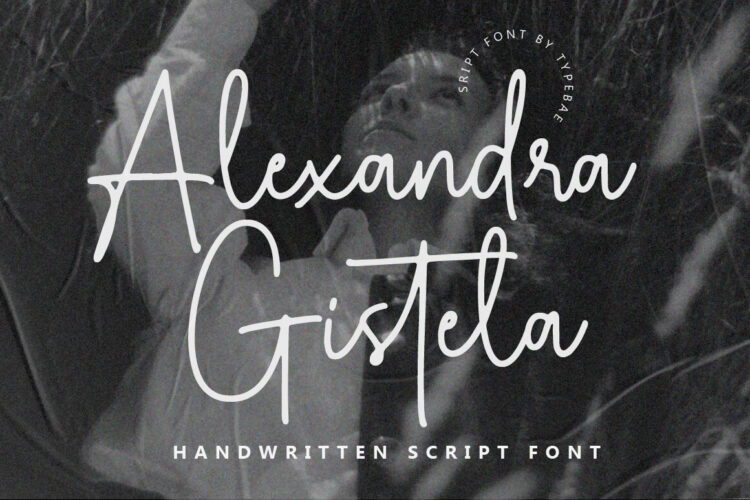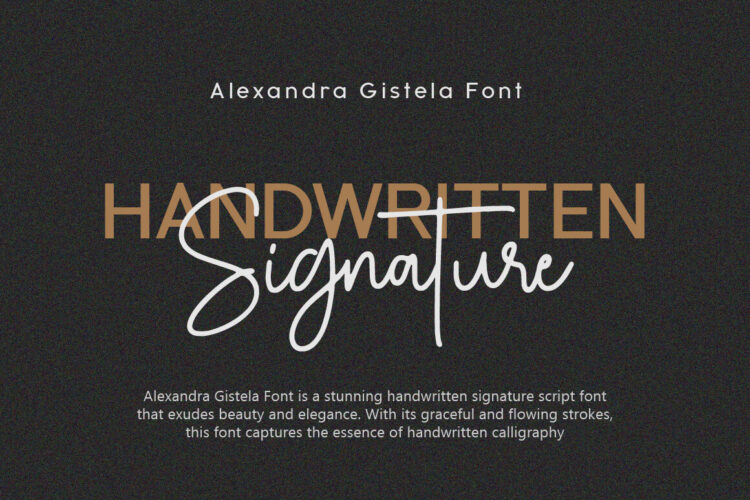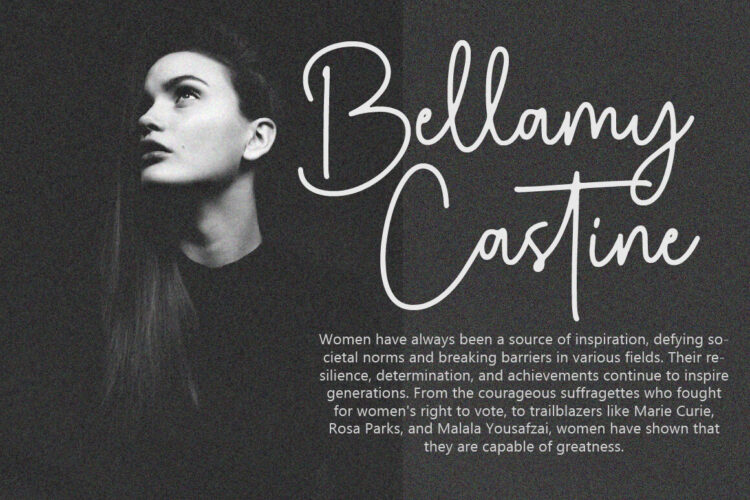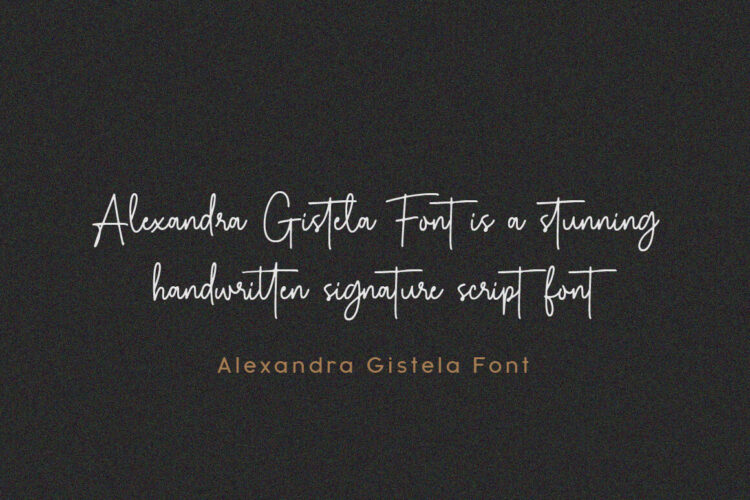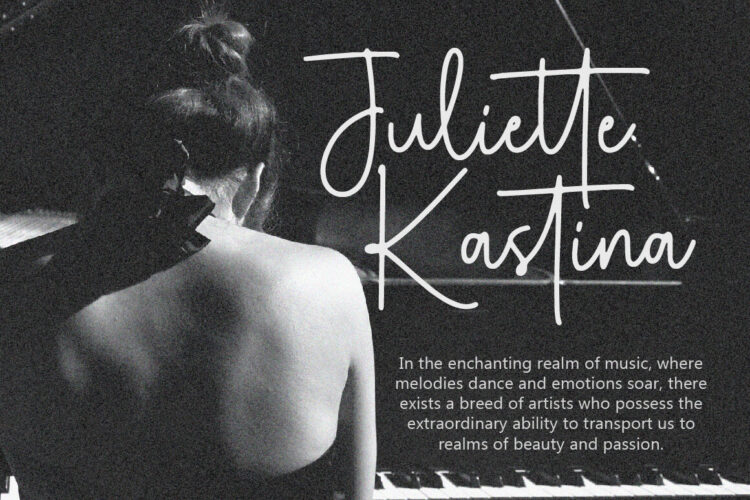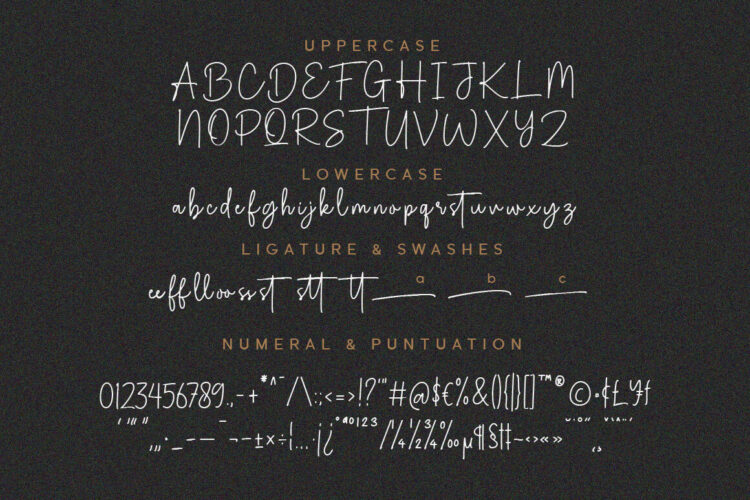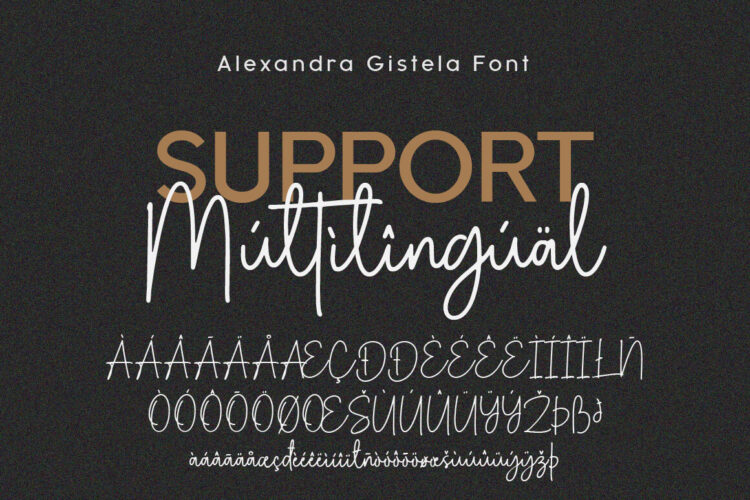
Alexandra Gistela is a stunning handwritten signature script font that exudes beauty and elegance. Alexandra Gistela is perfect for creating luxurious branding materials, wedding invitations, greeting cards, and other projects that demand a touch of refined beauty.
- Uppercase, Lowercase, Numeral and punctuation
- Ligature feature
- Multilingual Support